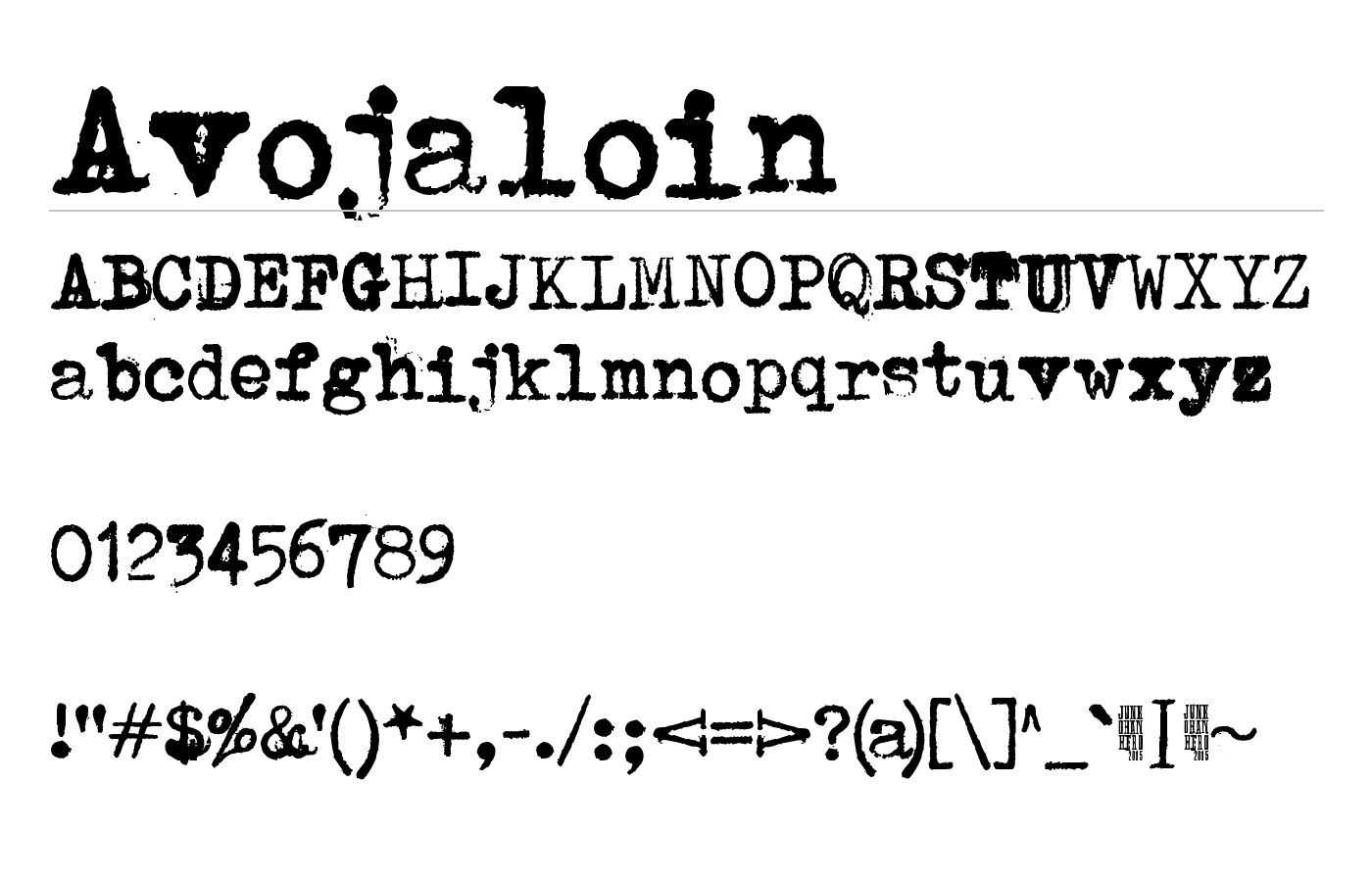
Avojaloin is a distressed, slab serif typewriter-style font with a rugged, textured look that adds a vintage, handcrafted feel. Its uneven ink blot effects and strong serifs give it a bold, expressive personality ideal for retro or grunge designs. This font works great for headlines, posters, and branding that need an edgy, authentic touch with a nostalgic vibe.
Avojaloin Font
About Avojaloin Font